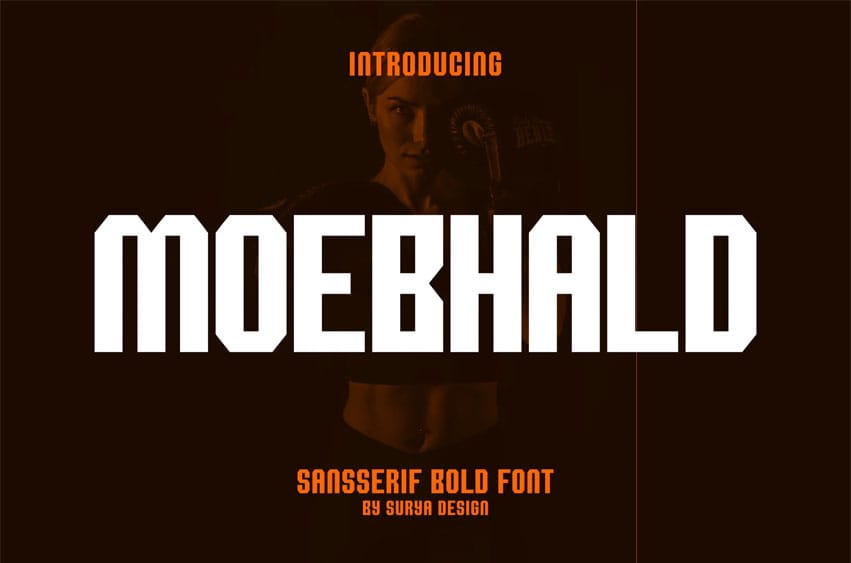
Moebhald Font Modern Font is a bold and authentic display font. The font is suitable for any branding project like logo, t-shirt printing, esport, and many more. outstanding in a wide range of contexts.